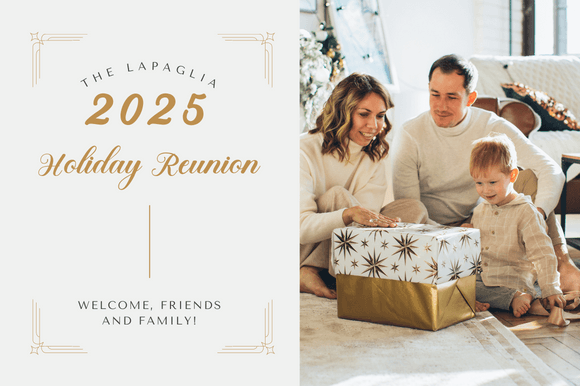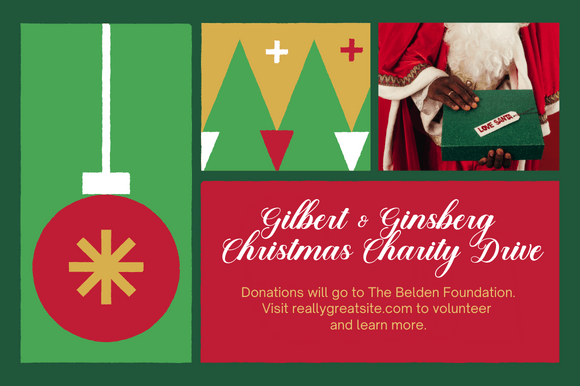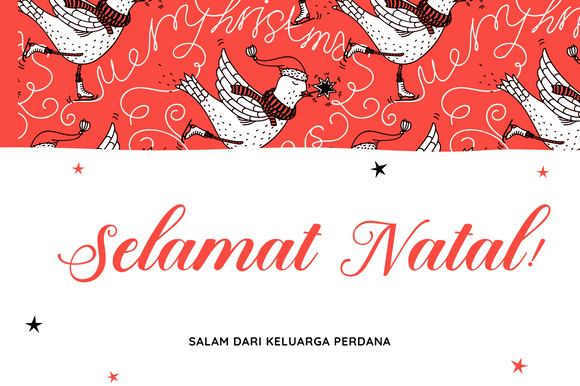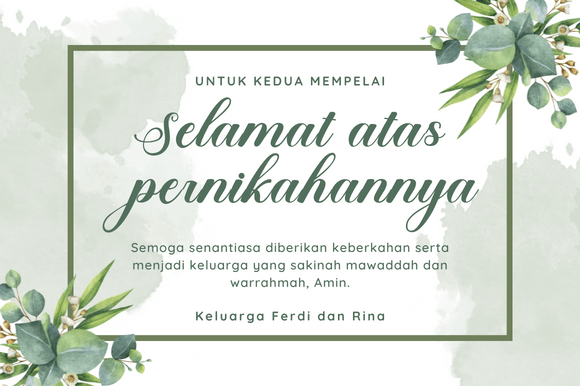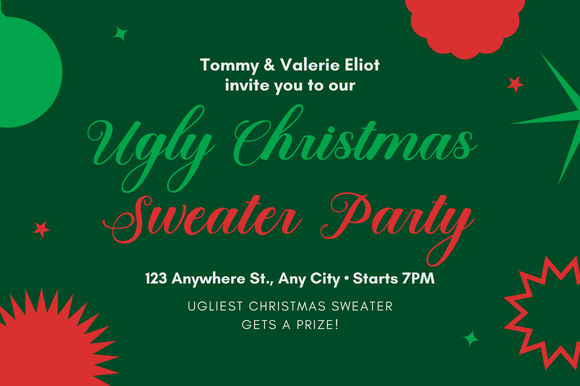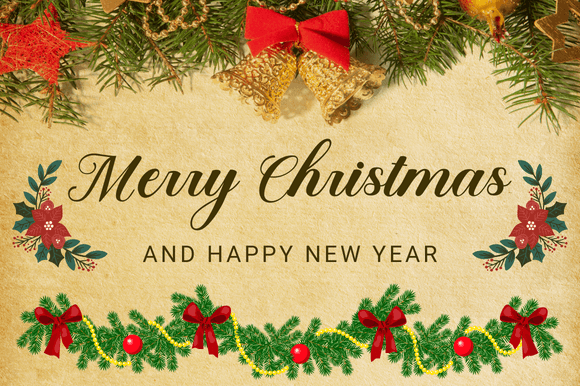
Sahara Font
About Sahara Font
Sahara is a handwritten font made for product packaging, invitation cards, posters, product logos, greeting cards, business cards, and all aspects that require high-quality typography. The graphics in this font, such as characters to kerning, are very suitable for use in all aspects of creative work.